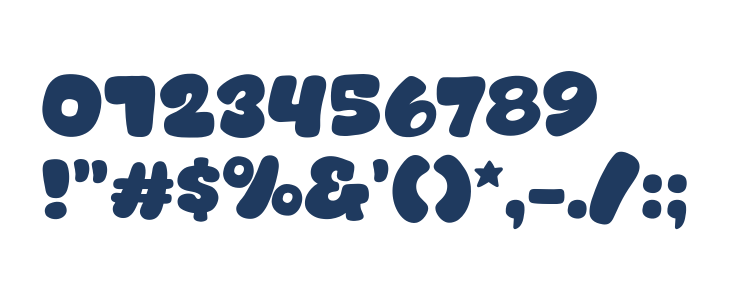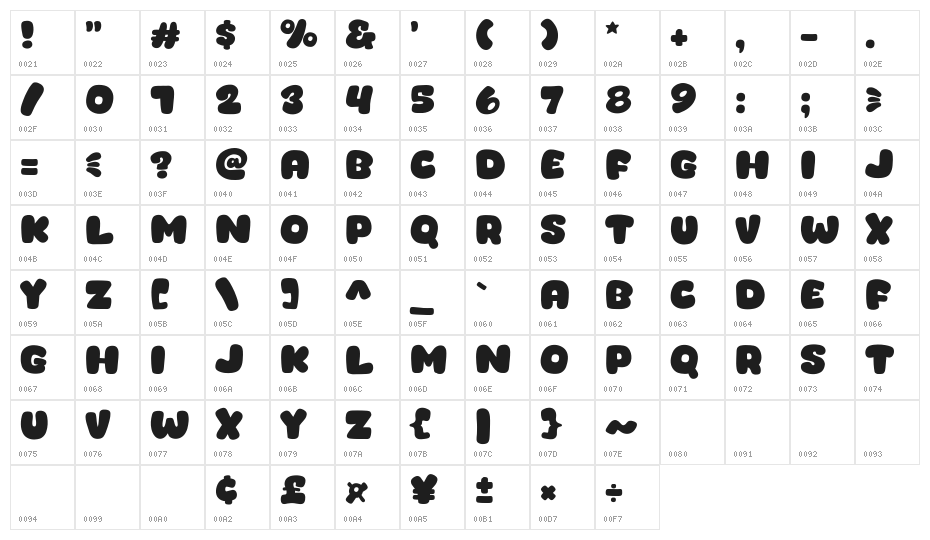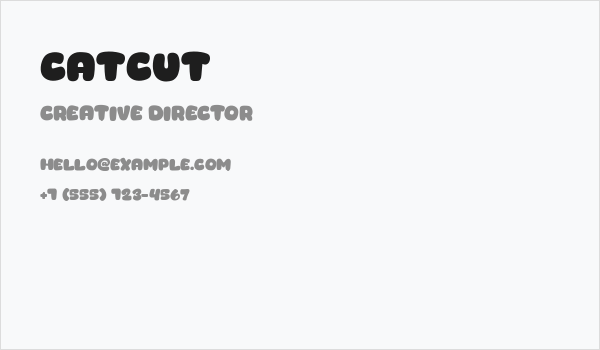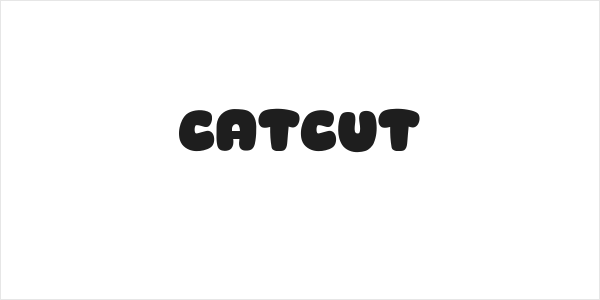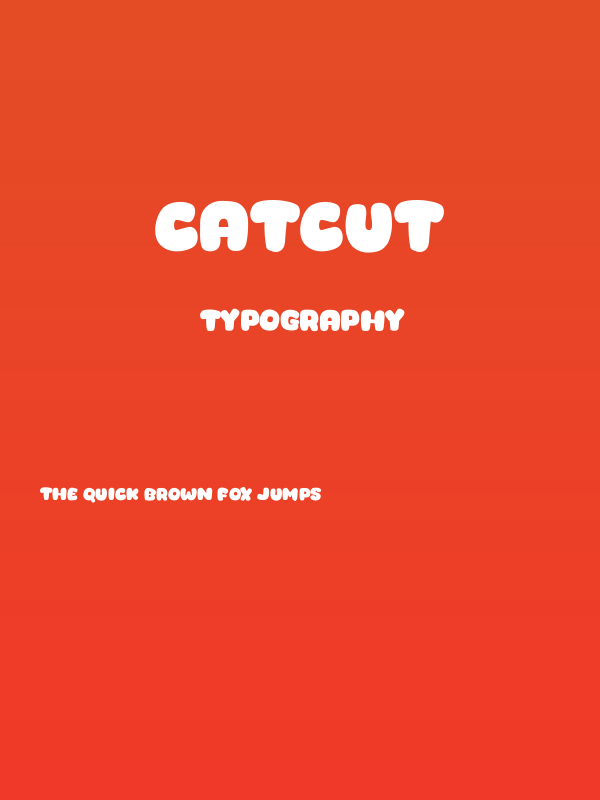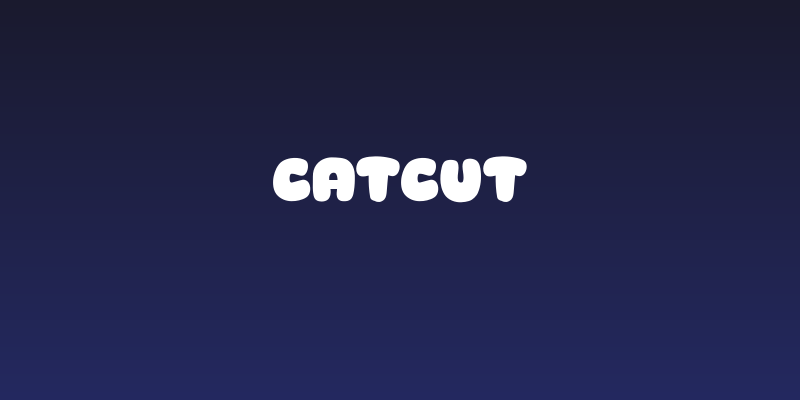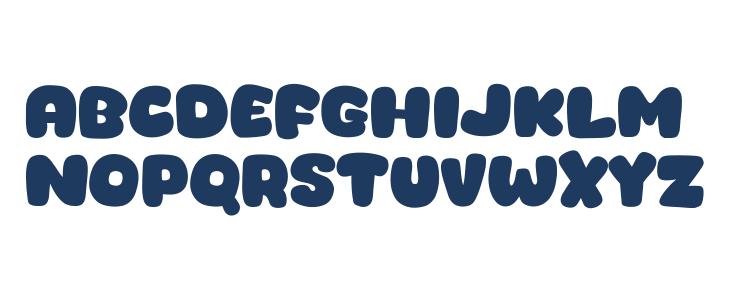
Catcut Font
Catcut Description
This playful and bold font features rounded, bubbly characters that exude a sense of fun and whimsy. The letters are thick and uniform, with a consistent stroke width that gives the font a cohesive look. The rounded edges and soft curves make it approachable and friendly, ideal for designs that aim to capture attention with a lighthearted tone. The font includes a full set of uppercase and lowercase letters, numbers, and a variety of special characters, ensuring versatility in its application.
| Overall Style | Playful |
| Proposed Projects | Perfect for children's books, playful branding, party invitations, and any design needing a fun, approachable feel. |